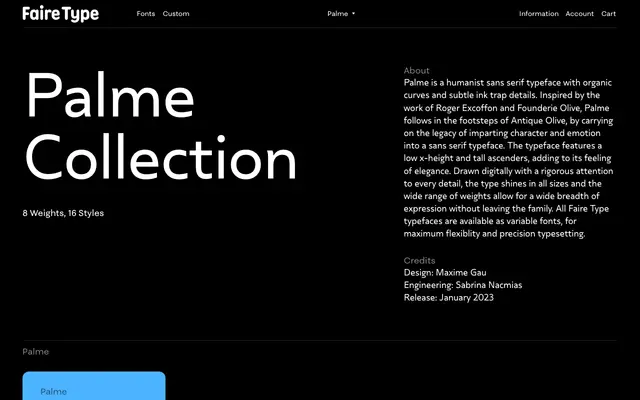
Palme
Faire Type · Maxime Gau · 2023
A humanist sans inspired by Roger Excoffon and Fonderie Olive, with low x-height, tall ascenders and ink trap details across eight weights.
Designed by Maxime Gau and released in January 2023, it takes Antique Olive as its spiritual forebear, translating Excoffon's expressive sensibility into a contemporary digital family. The low x-height and tall ascenders give it an elegance unusual among sans serifs, while subtle ink traps add texture at smaller sizes. All sixteen styles are available as variable fonts, covering a range from Hairline to Super.
Described explicitly as a humanist sans serif, drawing inspiration from Roger Excoffon's Antique Olive and Fonderie Olive, placing it firmly in the humanist tradition with organic, characterful curves rather than geometric or grotesque neutrality.